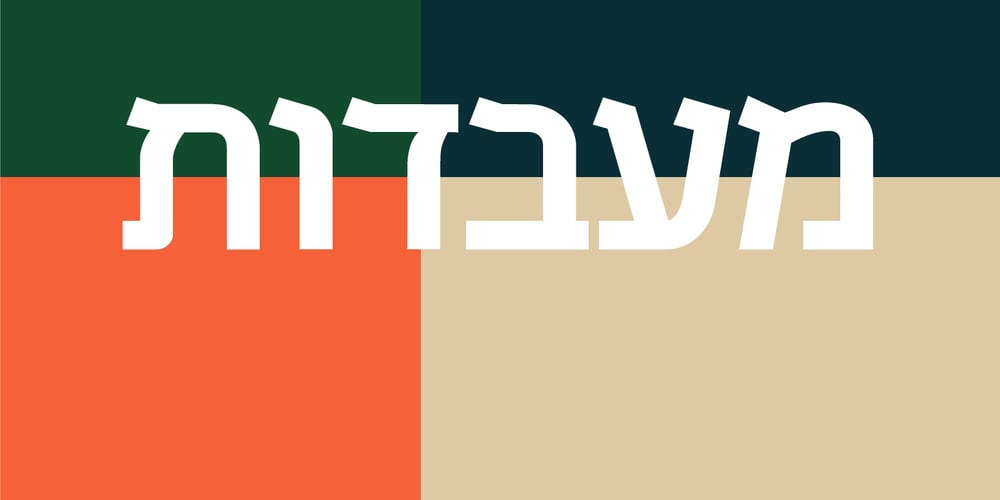
Celeb MF
Celeb MF font
Celeb MF Font Family was designed by Zvika Rosenberg and published by Masterfont. Celeb MF contains 4 styles and family package options. This happy font family derives its geometric shapes from old Hebrew typefaces with added a modern twist. Suitable for any point size with a variety of 4 weights.